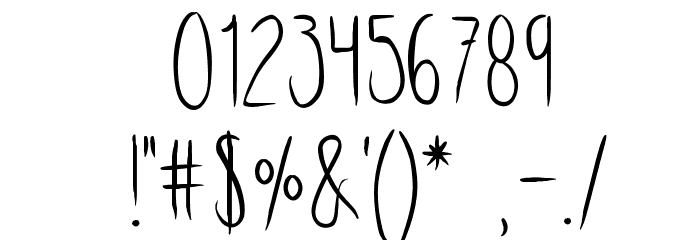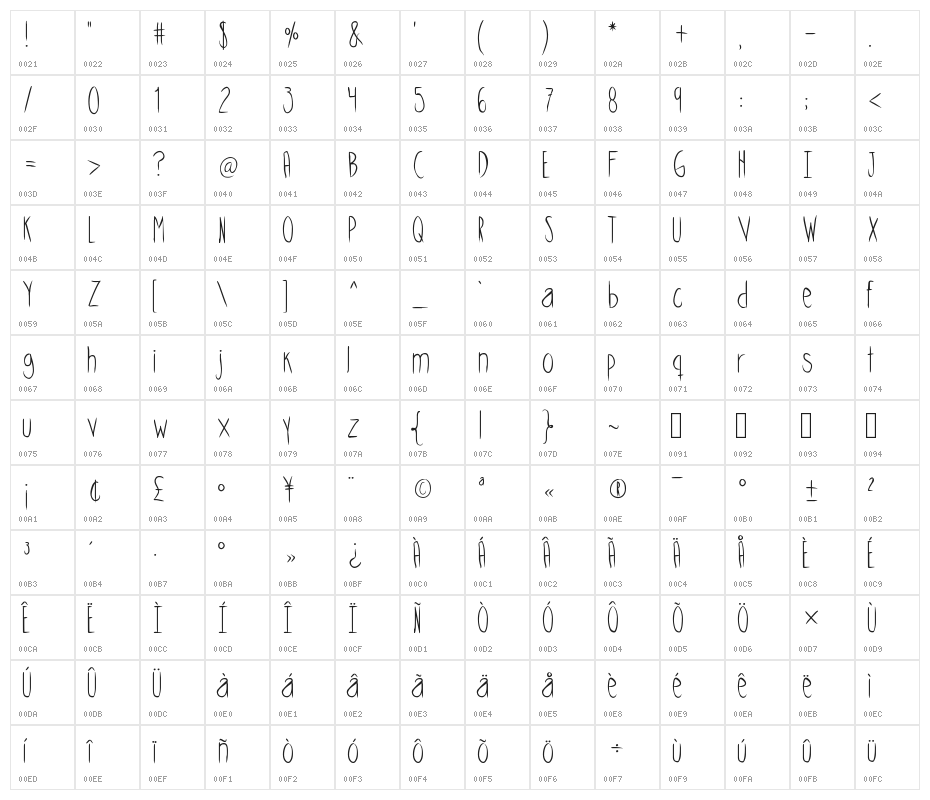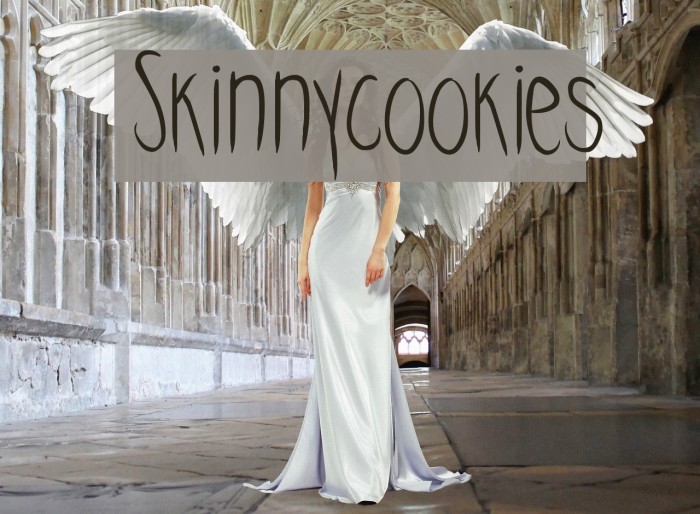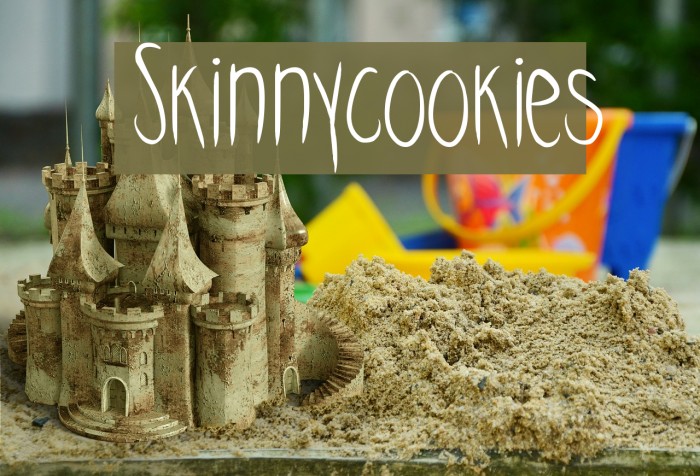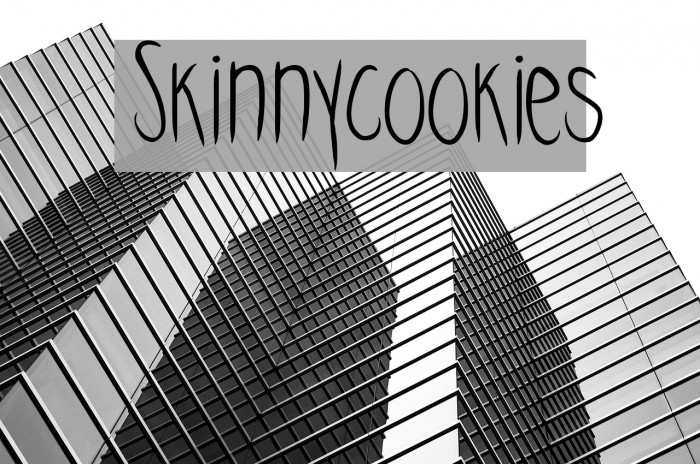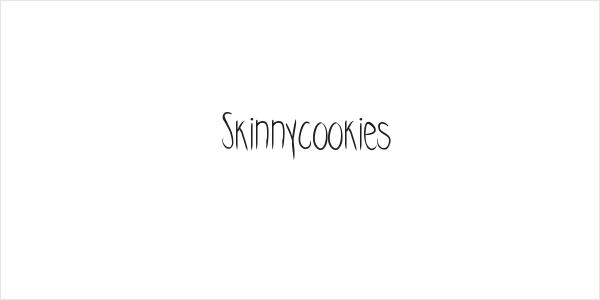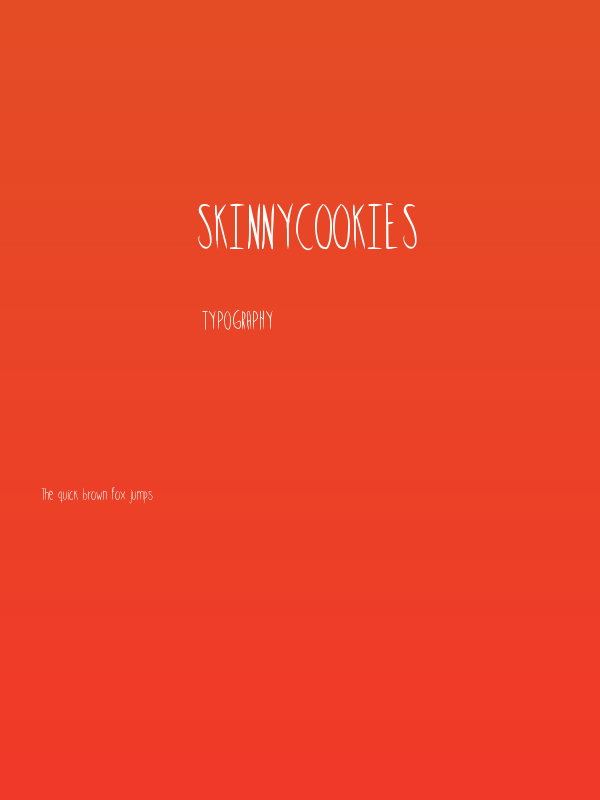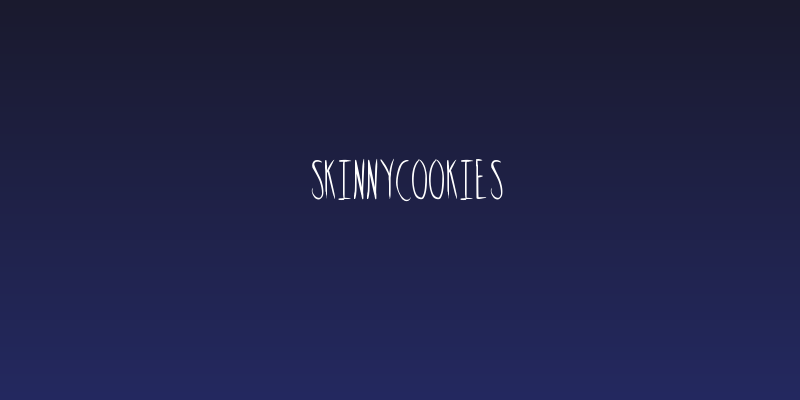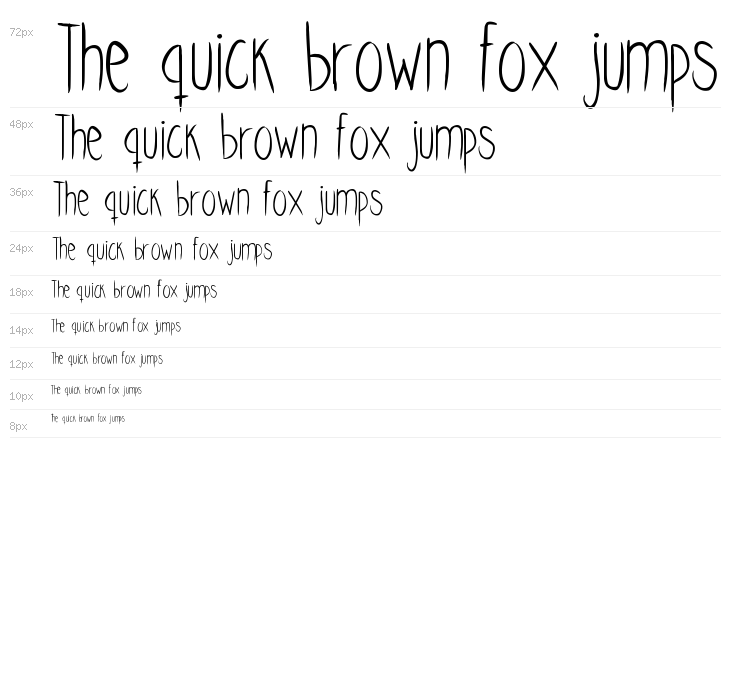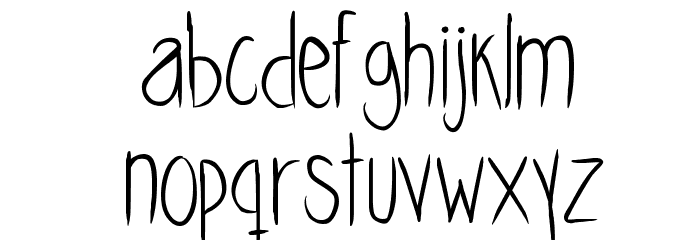
Skinnycookies Font
Skinnycookies Description
This font features a playful and whimsical style with tall, narrow characters that give it a unique and quirky appearance. The letters are slightly irregular, adding a hand-drawn feel that enhances its charm. The uppercase and lowercase letters maintain a consistent height, contributing to a cohesive look. The numbers and special characters follow the same slender and elongated design, ensuring uniformity across all glyphs. This font's distinctive style makes it suitable for creative projects that require a touch of personality and fun.
| Overall Style | Whimsical |
| Proposed Projects | Ideal for children's books, greeting cards, playful branding, and creative posters. |